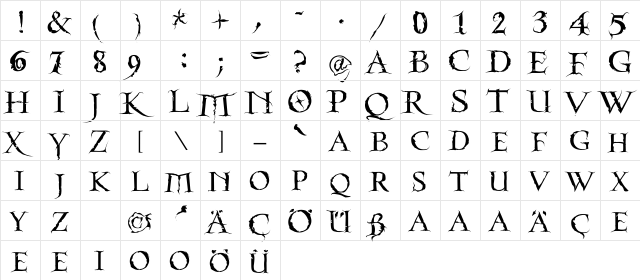
Torquator Regular
Design Context for Torquator Typeface
Torquator is a composed and adaptable typeface that performs quietly and consistently across a wide range of design contexts.